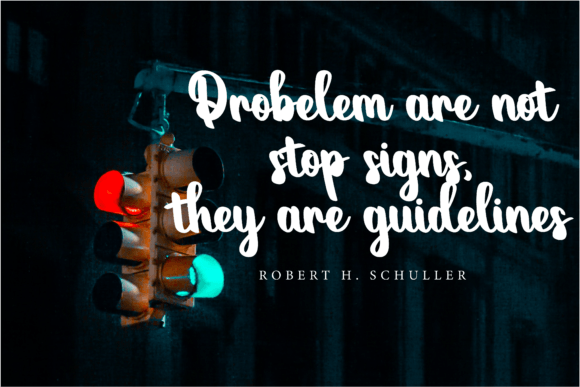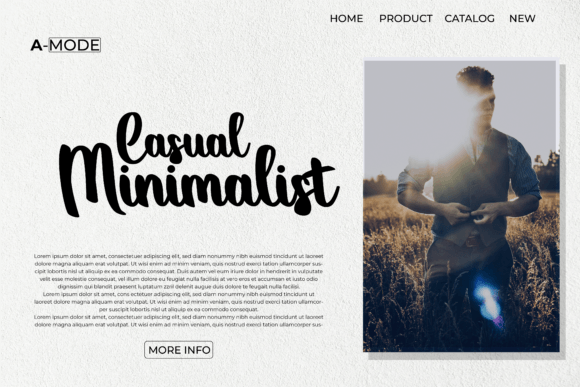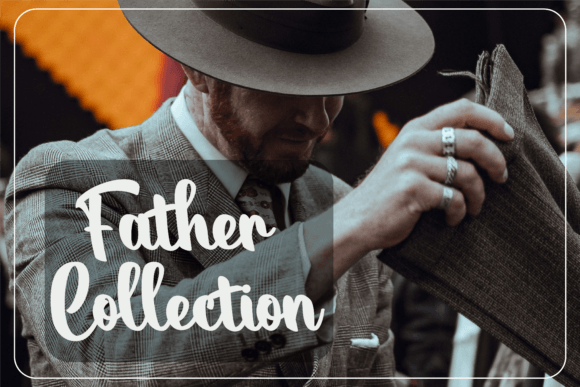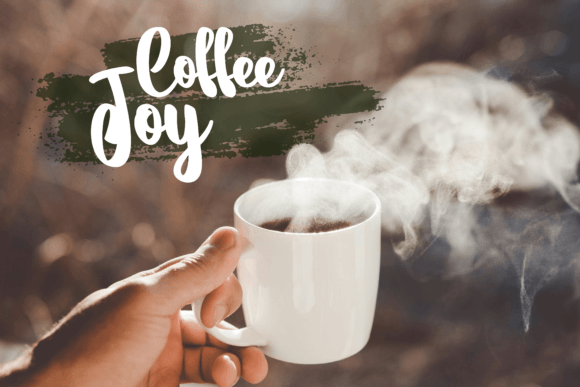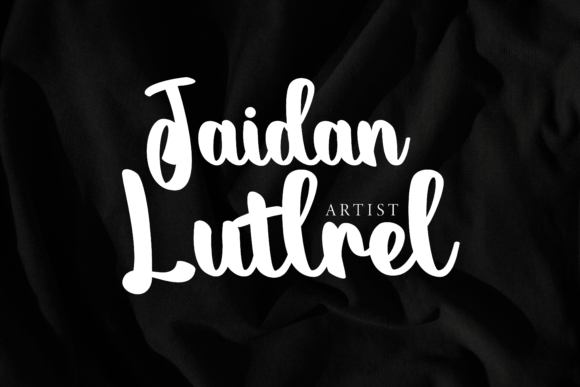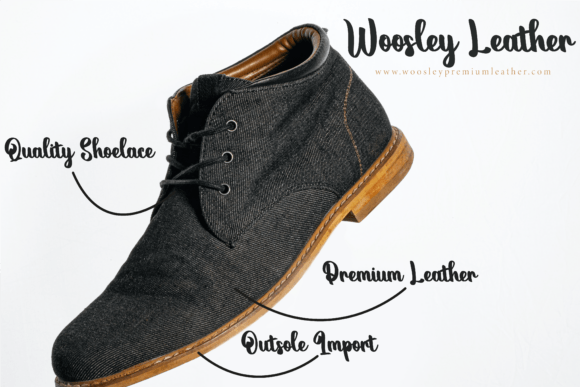
Introduction to Melbourne Font
Do you remember that moment when you stumbled upon the perfect font for your creative project? The one that makes your design stand out, leaving a lasting impression on your audience? For many designers, that moment is what makes all the hard work worth it. For those who’ve found themselves in this exact situation, we’re excited to introduce you to the Melbourne Font – a high-quality, artistic script font that’s about to take your designs to the next level.
With its authentic and creative flair, the Melbourne Font is a versatile design resource that can elevate any project. Whether you’re working on a wedding invitation, social media logo, or product packaging, this font is sure to make a statement. And the best part? It’s available for free download, making it an accessible addition to any creative project. In this article, we’ll dive deeper into the world of Melbourne Font, exploring its unique features and how it can transform your designs.
Key Features of Melbourne Font
- High-quality design: Melbourne Font is a beautifully crafted font that is perfect for any creative project.
- Transparent background: Melbourne Font features a transparent background, allowing for easy layering and manipulation in design projects.
- Vector format: Designed in vector format, Melbourne Font can be scaled up or down without losing its quality or clarity.
- Large character set: This font includes a large character set, including uppercase and lowercase letters, numbers, and punctuation marks.
- Resolution-independent: With a resolution of 300 DPI, Melbourne Font is suitable for use in both print and digital projects.
Honest Review: Melbourne Font
Here are some of the things that work well: ✨ The font features a clean and modern design aesthetic that’s perfect for a variety of applications, from digital displays to print materials. The transparent background also makes it easy to use with different colors and backgrounds. Additionally, the font is highly customizable, allowing designers to adjust the size, color, and style to suit their needs.
Here are some potential limitations: ⚠️ The font is available in a limited number of weights, which may not be ideal for designers who need a wide range of font options. Additionally, some users have reported issues with font rendering on certain devices or browsers.
Overall, I’m impressed with the Melbourne Font. Its clean design, transparent background, and customization options make it a valuable design resource for any creative project. While it may have some limitations, the benefits far outweigh the drawbacks.
- High-quality design aesthetic
- Customizable size, color, and style
Melbourne Font
To get the most out of the Melbourne Font, consider the following tips:
- Use a transparent background to give your design a clean and minimalist look.
- Pair the Melbourne Font with other high-quality design resources for a cohesive look.
The Melbourne Font is ideal for various creative projects, including:
- Business cards and letterheads.
- Marketing materials and brochures.
- Website headers and footers.
- Print and digital advertising.